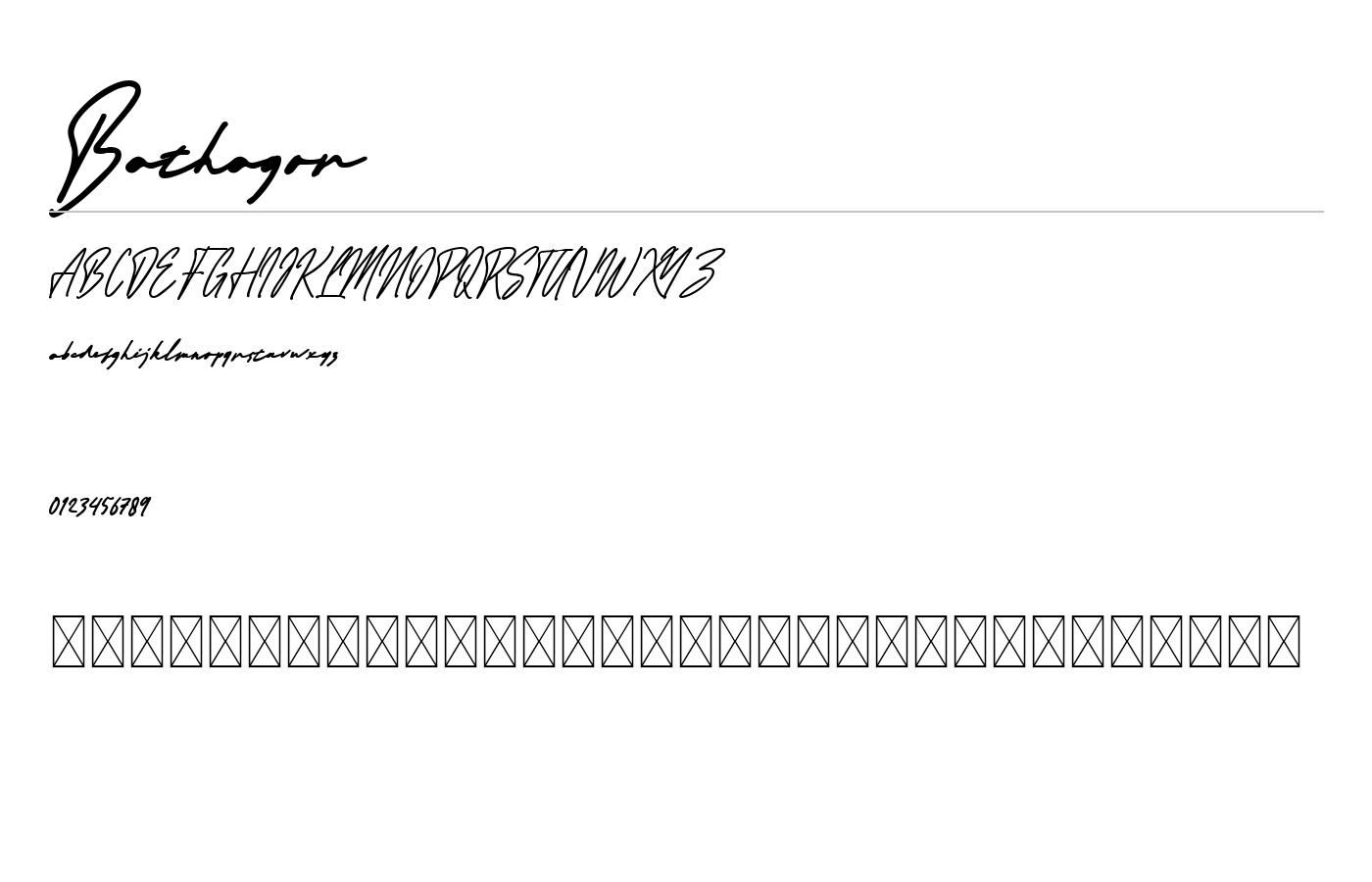
Bathagor is a stylish script font with a slender, elegant flow that mimics natural handwriting with a smooth, slightly slanted stroke. Its thin weight and airy spacing give it a delicate, refined appearance, making it perfect for creative branding, invitations, and fashion projects that seek a sophisticated yet personal touch. This font shines in display uses where its graceful character adds a unique, artistic flair.
Bathagor Font
About Bathagor Font